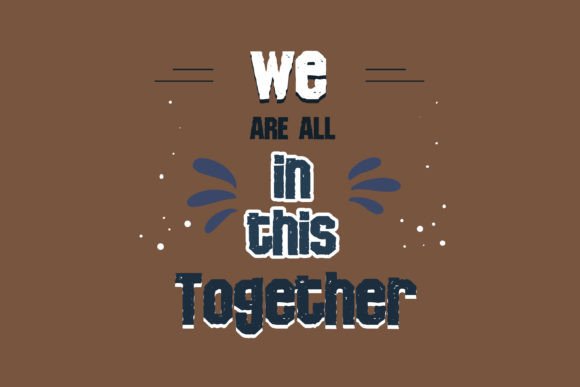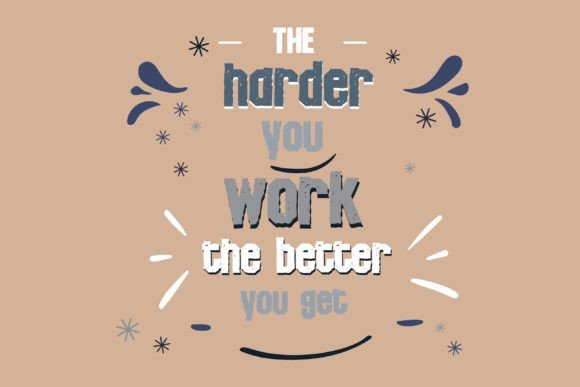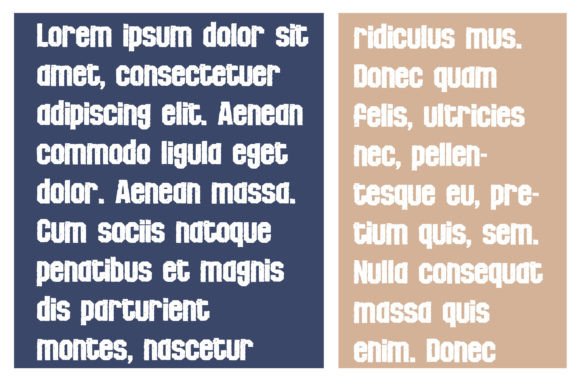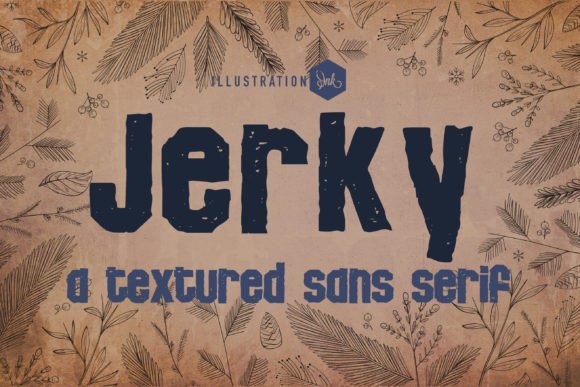
Introduction to Jerky Font
This hand-crafted sans serif is pretty squatty and a bit textured.
A hand-crafted font is a font that is designed to look like it was written by hand It is often used for invitations, greeting cards, and other items.
Key Features of Jerky Font
Why Choose Jerky Font?